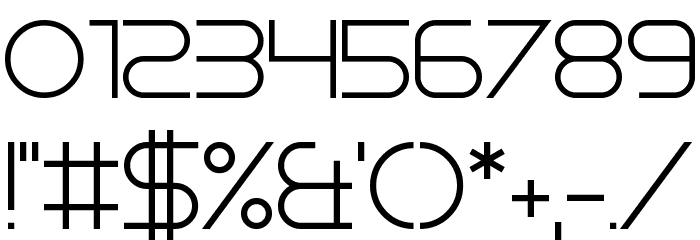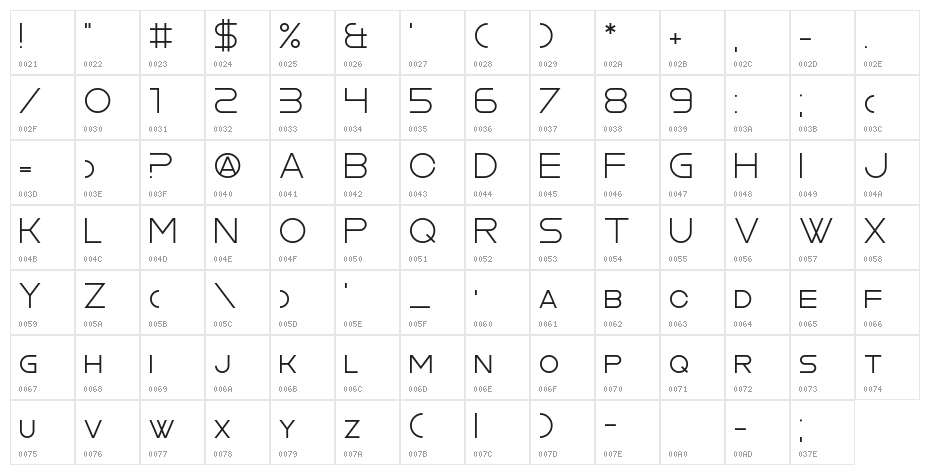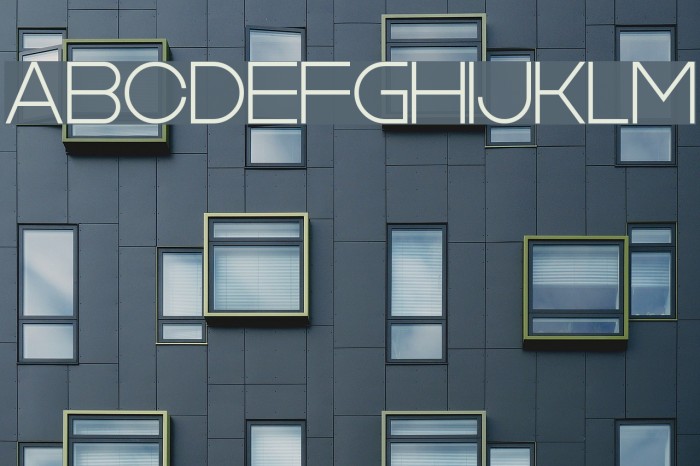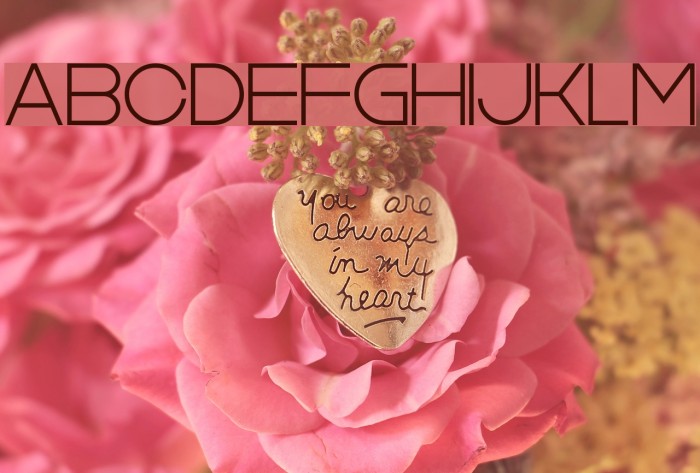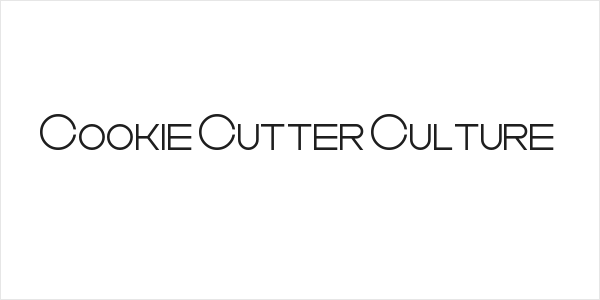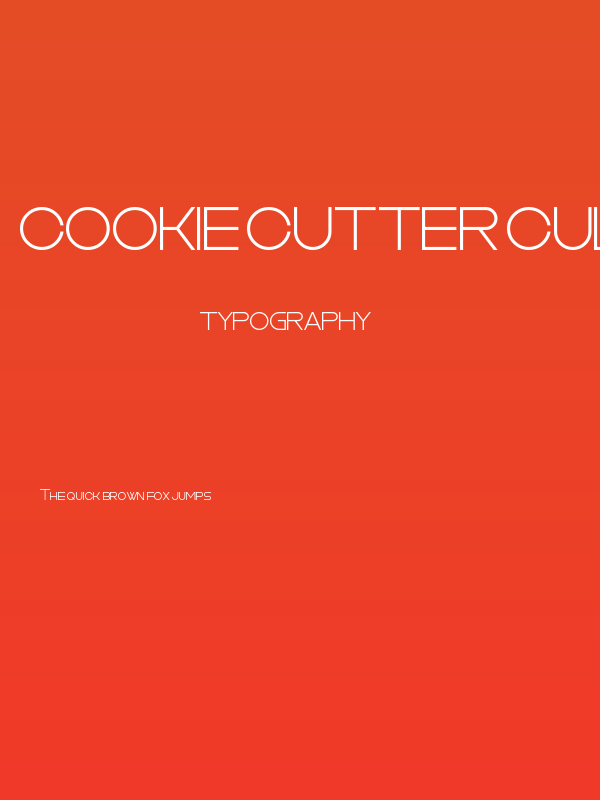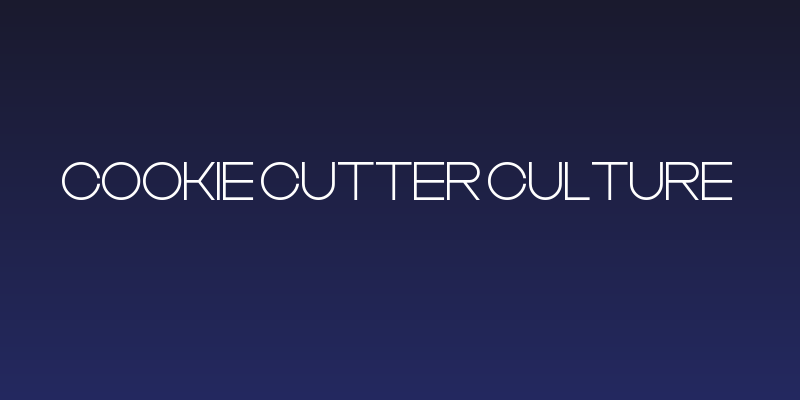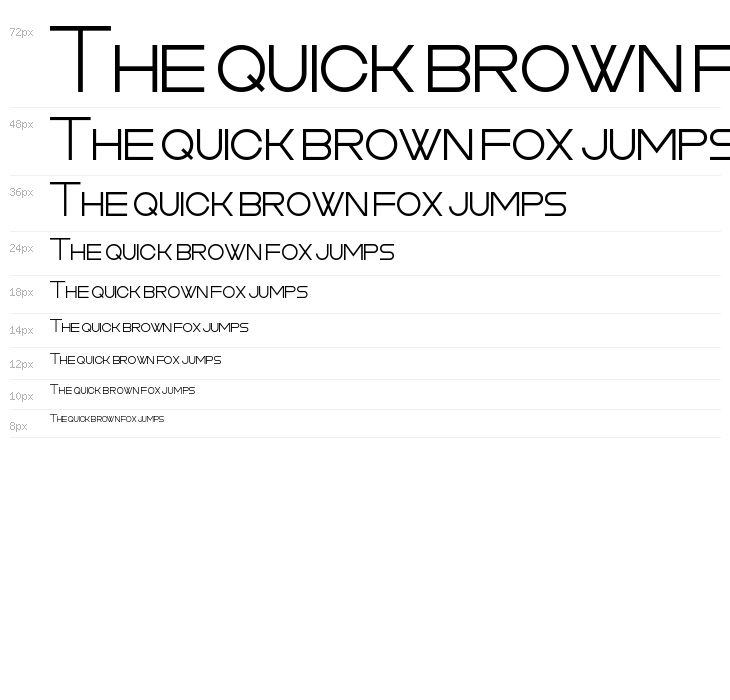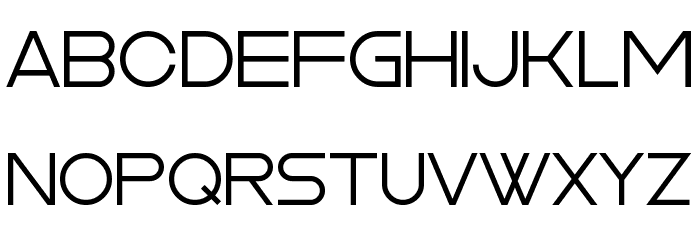
Cookie Cutter Culture Font
Cookie Cutter Culture Description
This font features a modern, geometric design with clean lines and a minimalist aesthetic. The characters are constructed with a consistent stroke width, giving it a uniform appearance. The uppercase letters are bold and striking, while the lowercase letters maintain the same geometric style, providing a cohesive look across all text. The numerals are equally balanced, and the special characters complement the overall design, making it versatile for various applications. Its simplicity and clarity make it suitable for contemporary design projects.
Use CaseHeadlines, Logos, Digital media
Proposed ProjectsIdeal for branding, advertising, digital media, and modern web design projects.